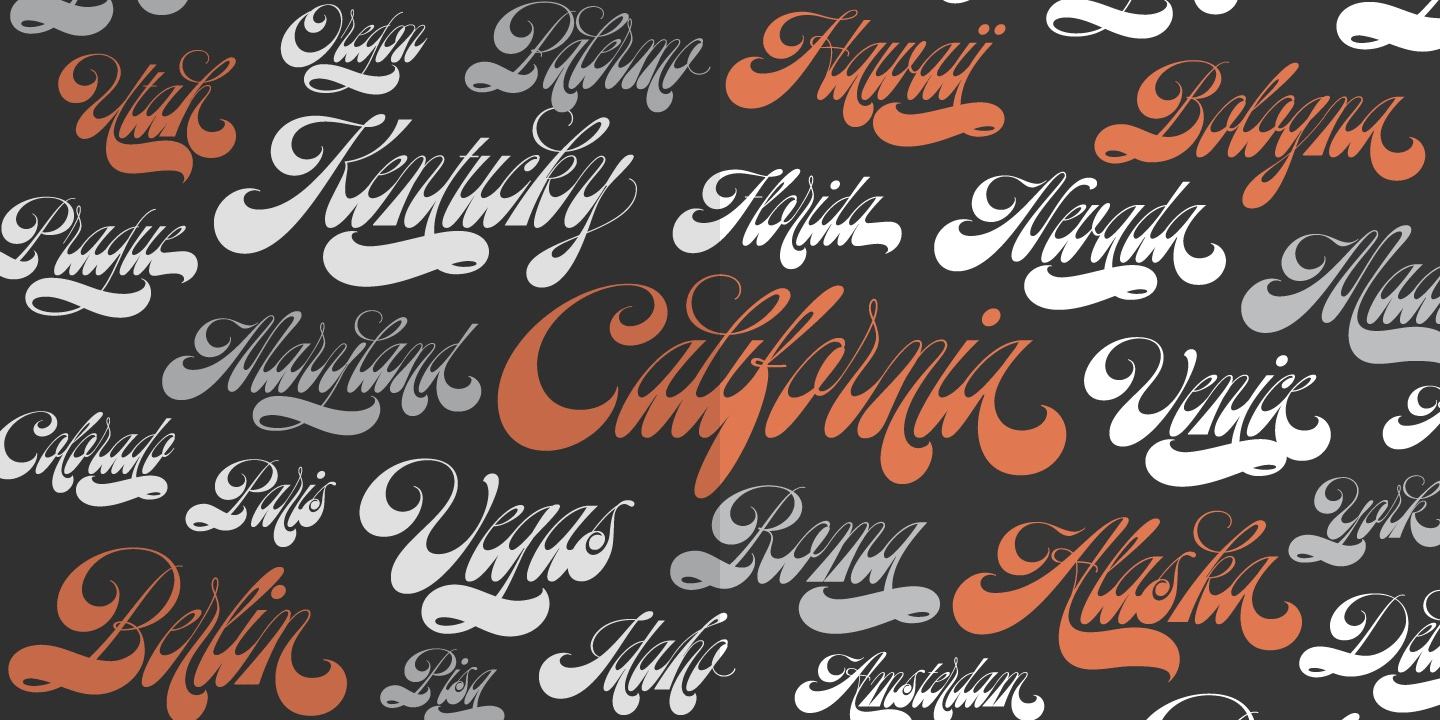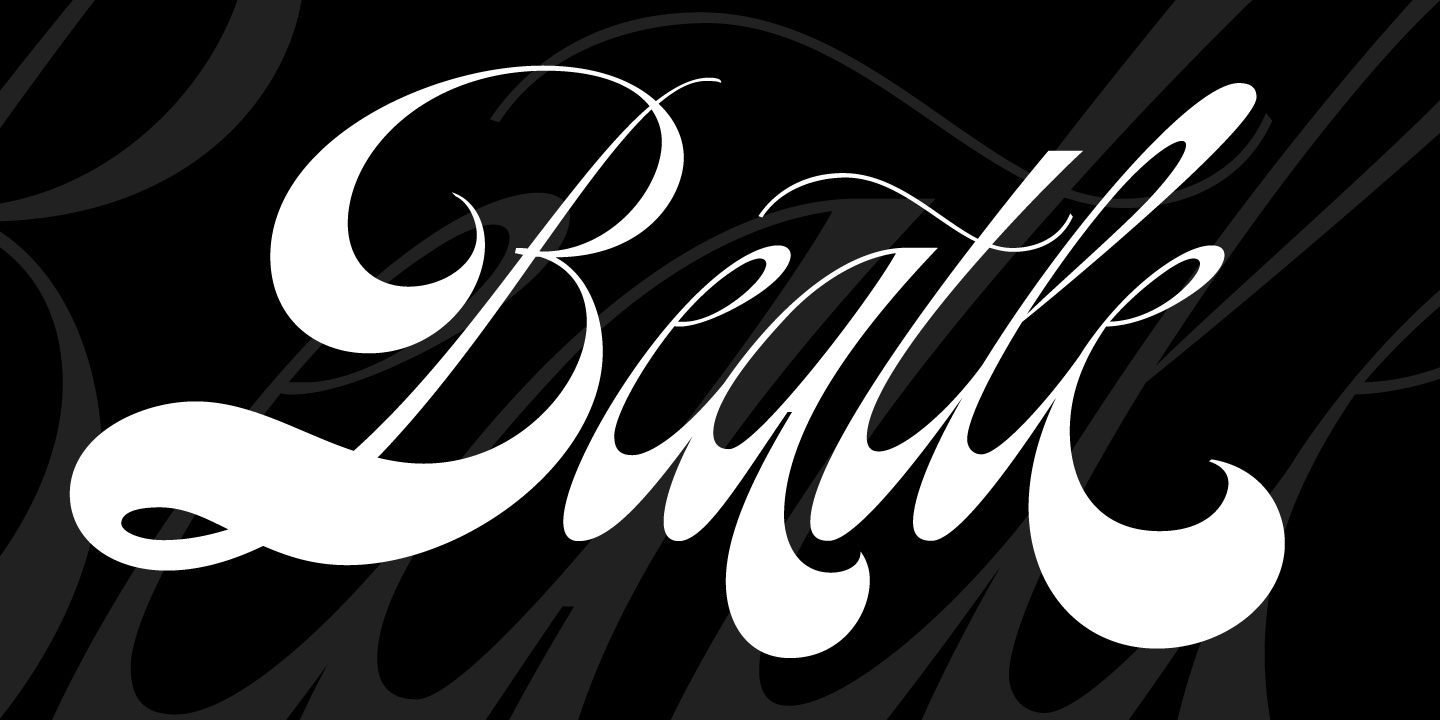
Beatle
About Beatle
What if Platt R. Spencer and Charles P. Zaner were born in mid-20th Century? What if instead of Beethoven or Chopin they were fan of The Beatles, Cream, or maybe the Rolling Stones? Beatle is what I think those masters would have made with their hands…